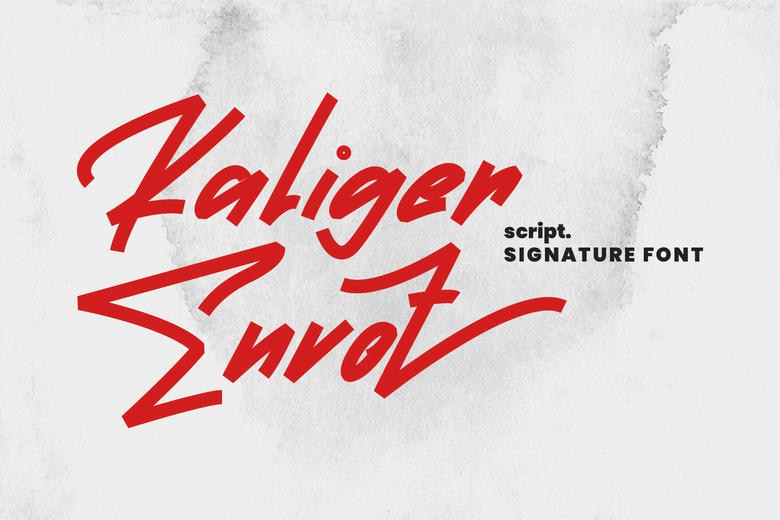
Kaliger Envot Font
Kaliger Envot is an incredibly unique handwritten font. Masterfully designed to become a true favorite, this font has the potential to bring each of your creative ideas to the highest level!
Kaliger Envot Handwritten Script Font